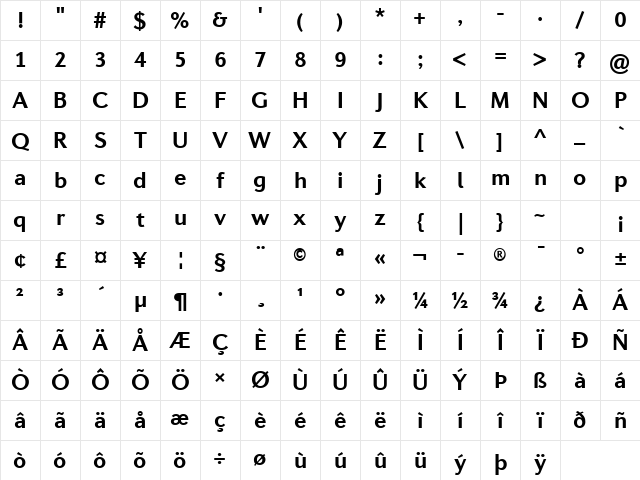
Diverda Sans Com Bold
Designer: Daniel Lanz
Design Context for Diverda Sans Com
Diverda Sans Com is a composed and adaptable typeface that performs quietly and consistently across a wide range of design contexts. Its bold stroke weight gives it real presence on the page.
Pro Tip: Use Diverda Sans Com in both headline and body roles to test its range before committing to a single application.